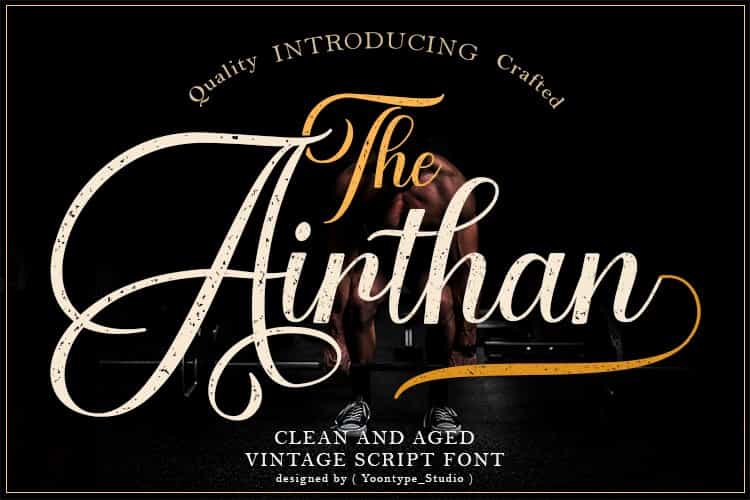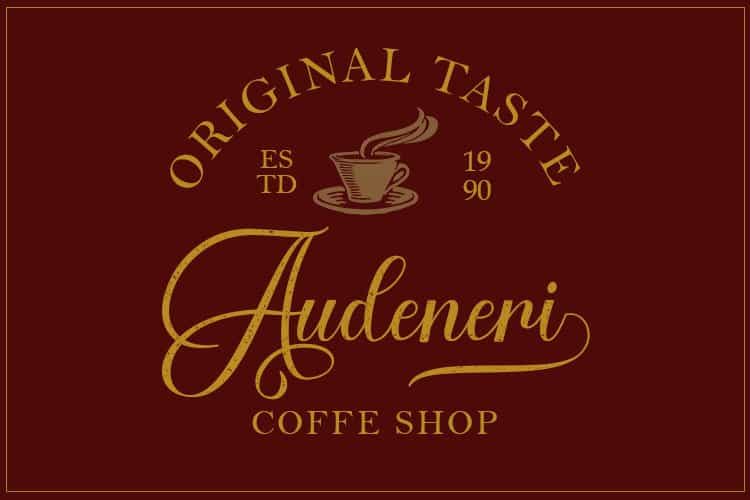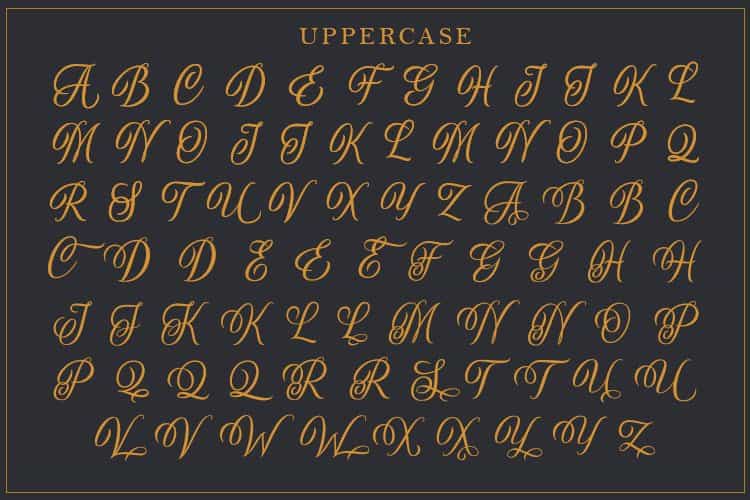
Discover The Airthan Font, part of the Calligraphy Vintage collection—a versatile and unique font perfect for adding a personal touch to your projects. Download it for free and enjoy crafting designs with style, from invitations to social media posts. This font is available exclusively for personal use, giving you the freedom to create without limits. Unlock your creativity with The Airthan Font today!
Airthan Old-Fashioned Script Font classic font is handwritten using traditional calligraphy influences and features an incredible mystical soundtrack. Airthan is available as both Clean and Aged versions – the latter providing an elegant alternative to ligatures for lowercase letters that is highly esteemed among Swash tips.